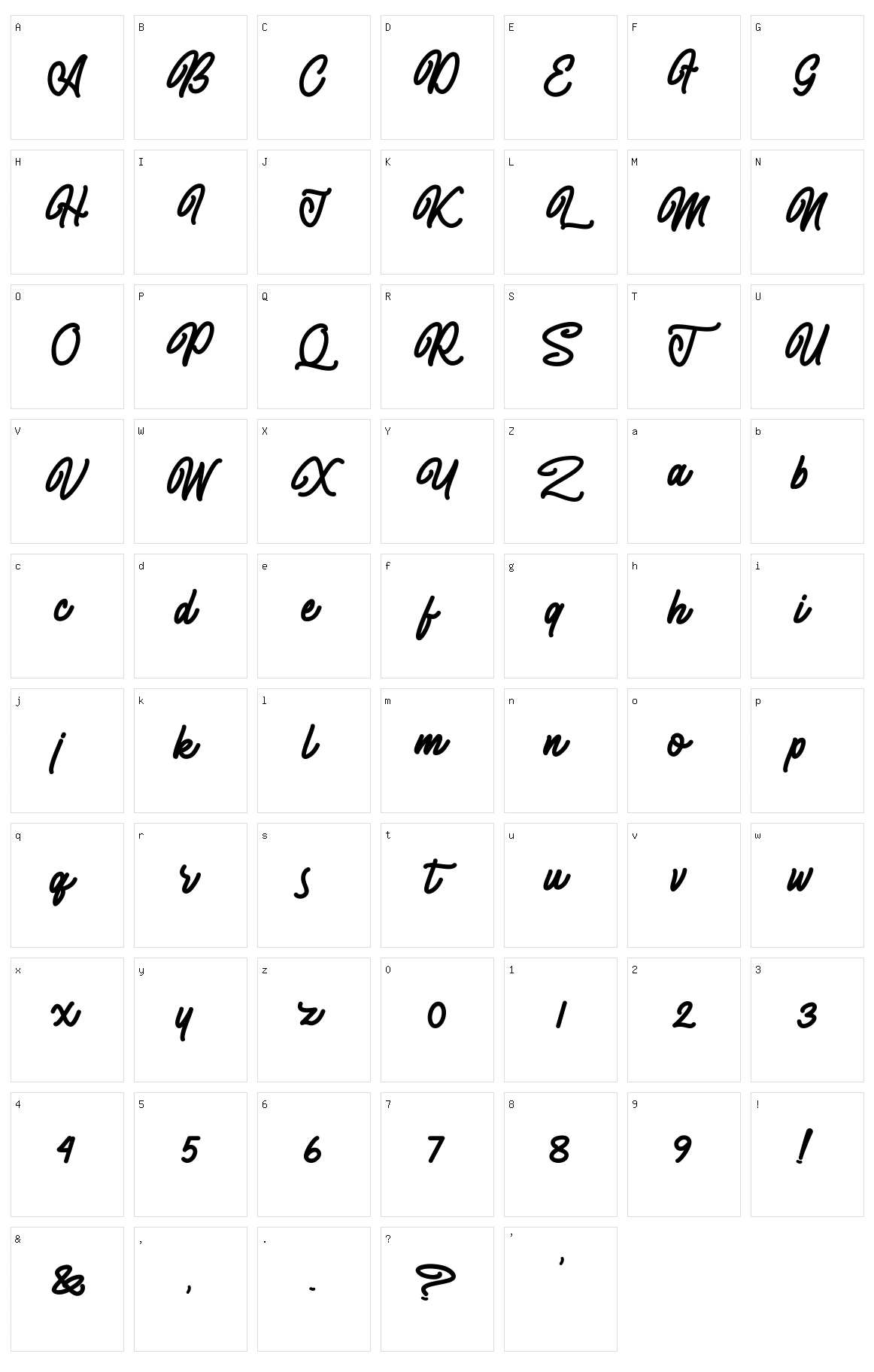
The free font Almonthy Mirotas is carefully designed by Kotak Kuning Studio, showcasing a thoughtful balance of creativity and usability and falls under the Old-School font style. When you download the ZIP file, it contains only 22.13 KB of font files, making it lightweight and quick to download. Please review the license details below to understand permitted usage and distribution rights. If license information is not available, we recommend using this font for personal projects only or contacting the author directly for commercial usage permissions.